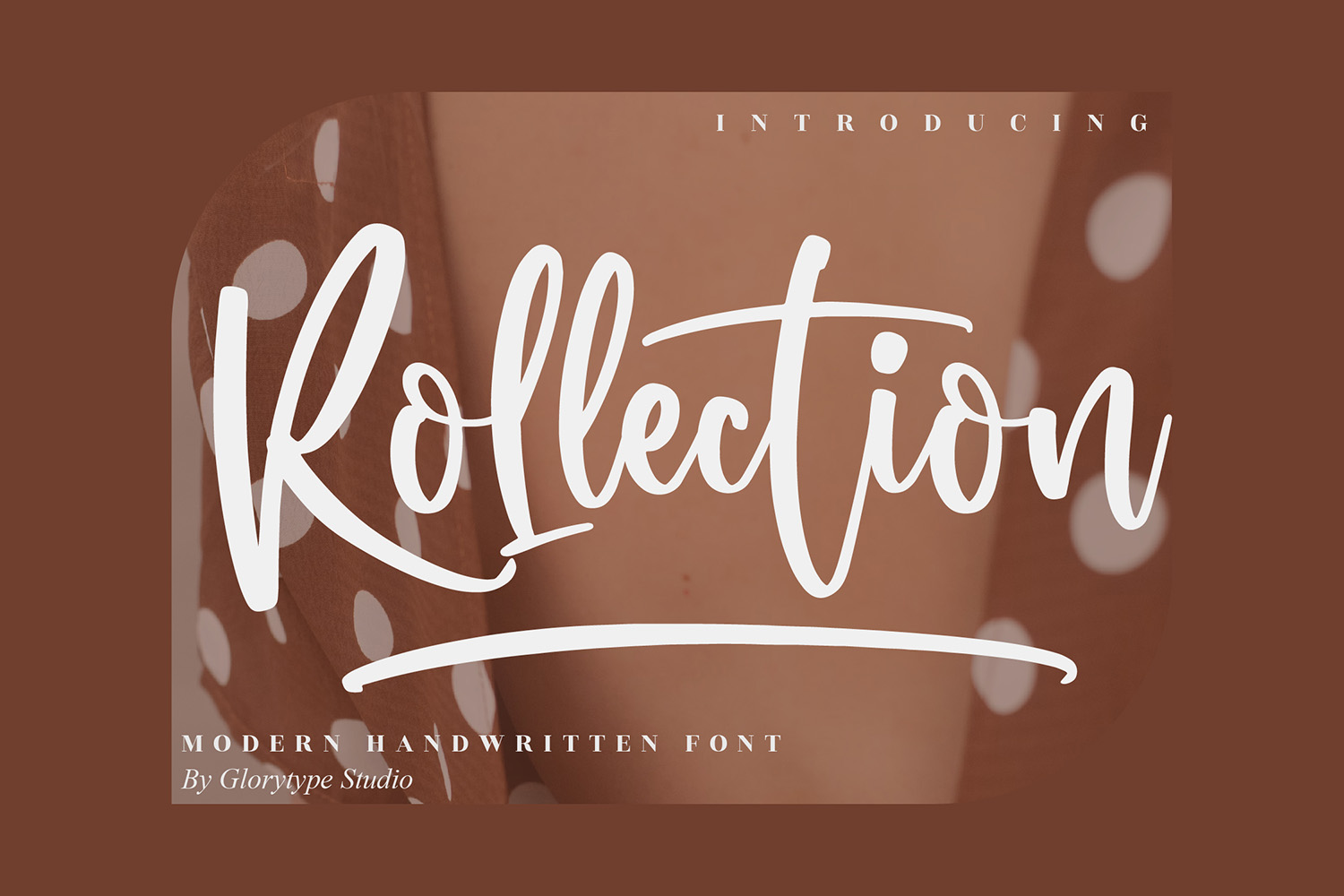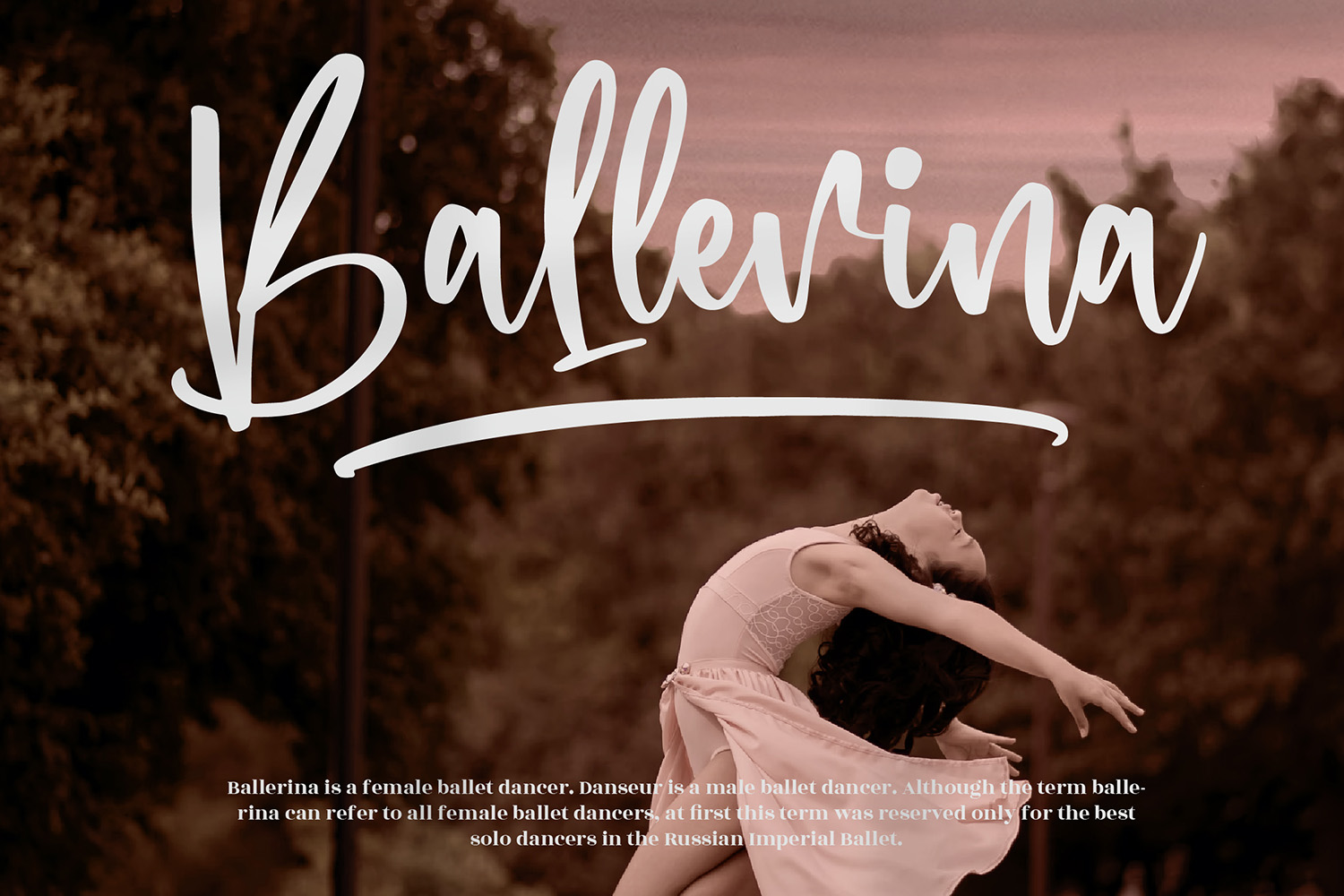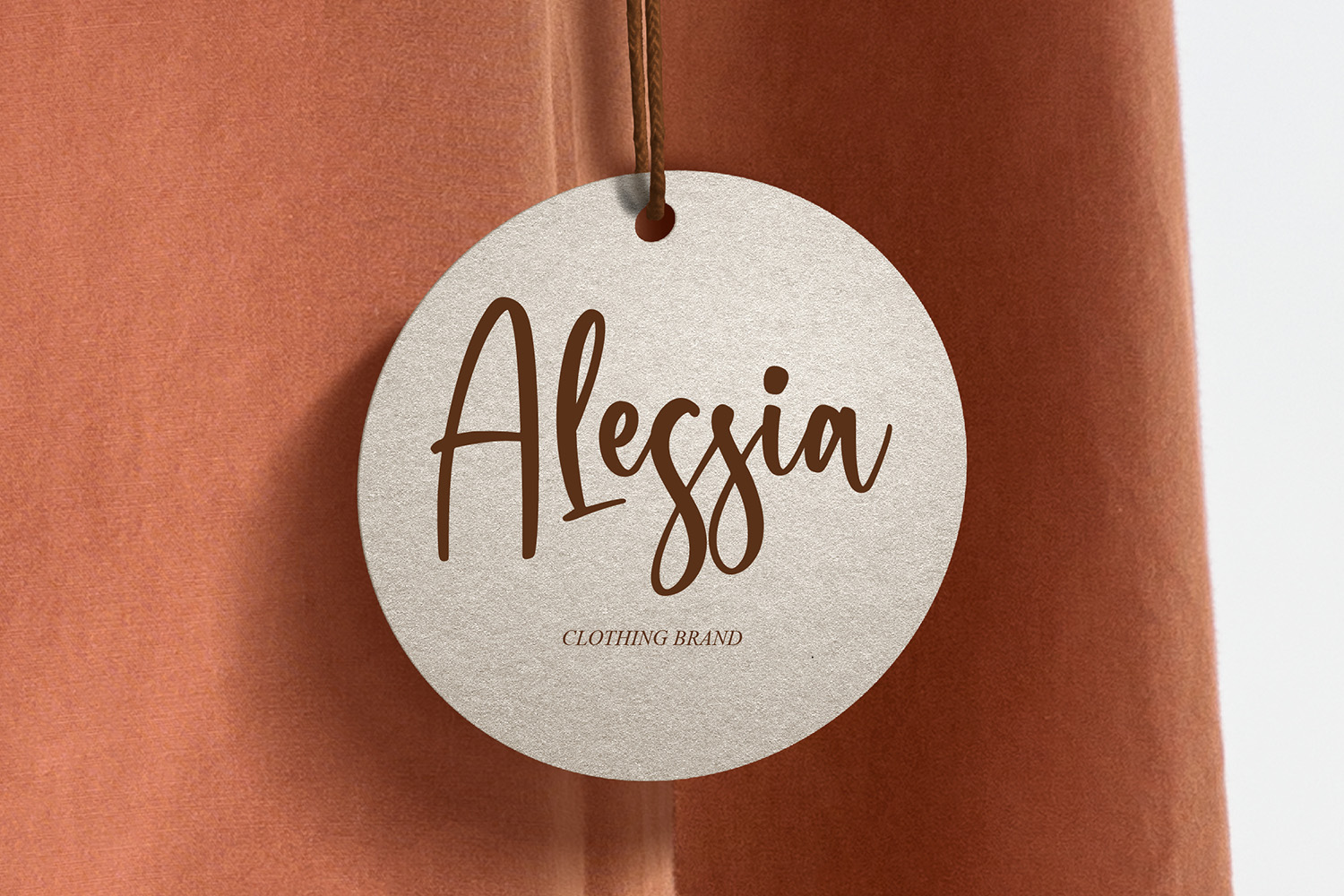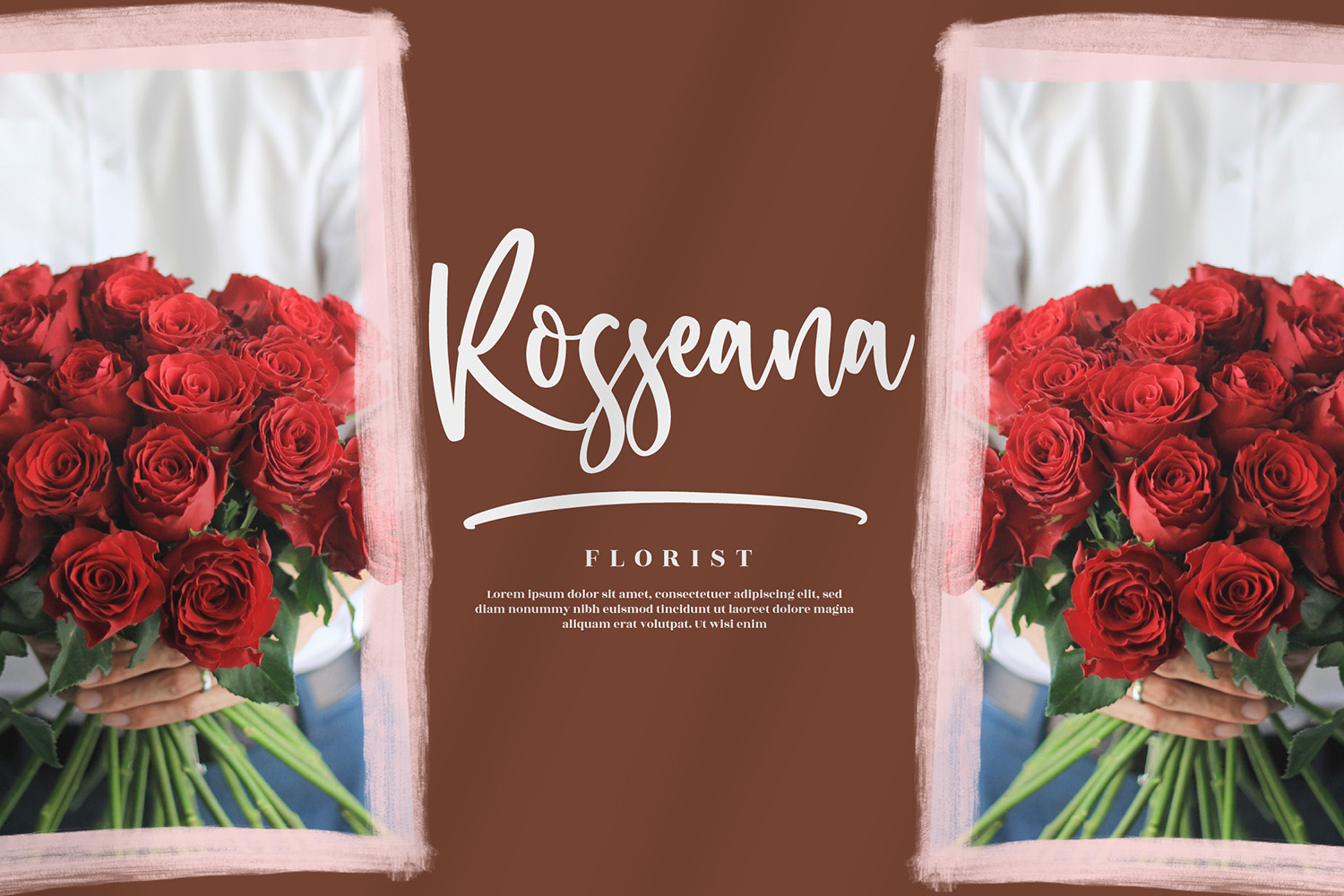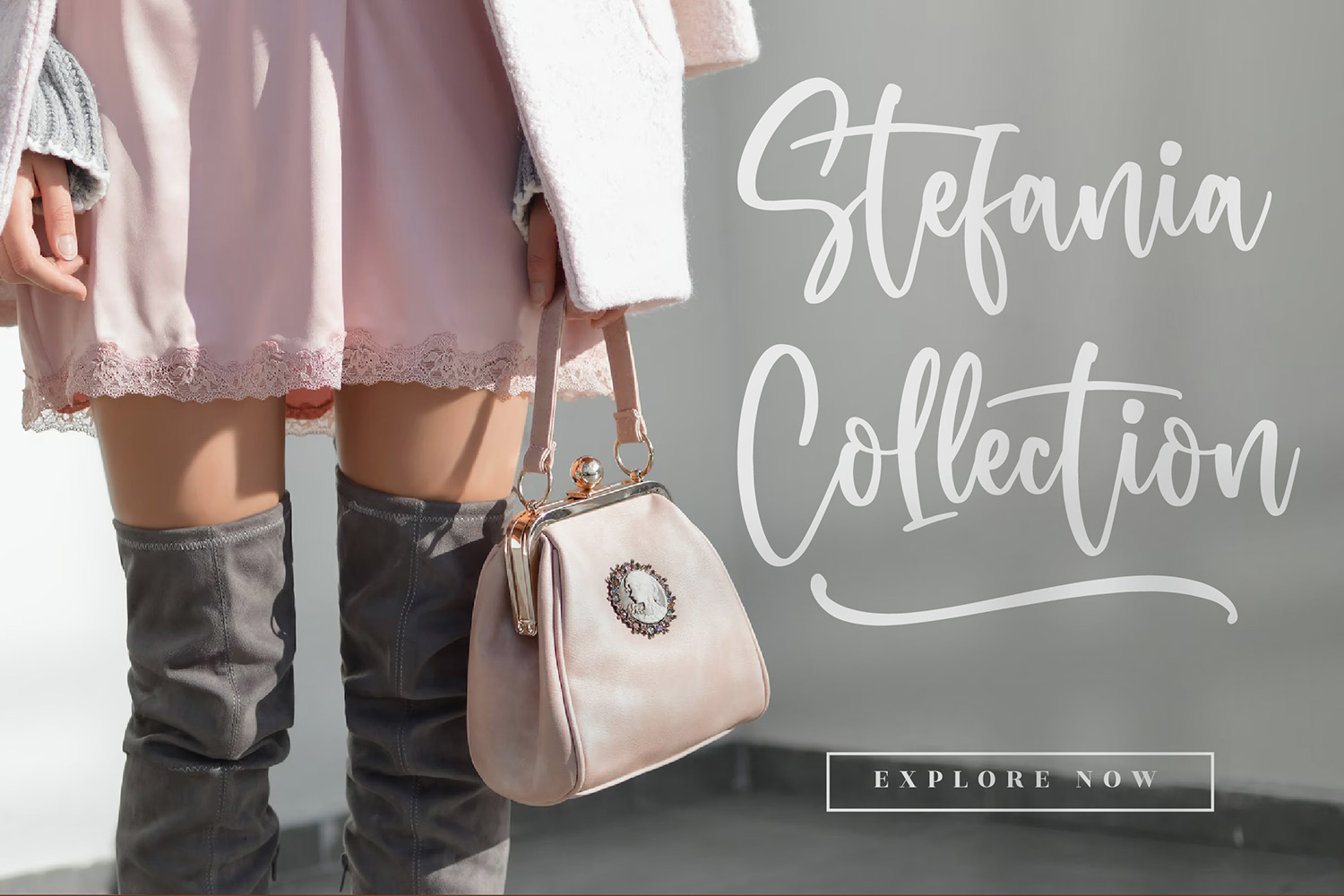
Rollection Free Font
Discover Rollection Free Font, an elegant and polished script font radiating an air of sophistication and grace. With its tasteful alternates and graceful ligatures, this font seamlessly complements every project, enhancing its appeal with an exquisite touch. This free typeface was designed by a talented Glorytype Studio. If you like it don’t forget to check out the full version.